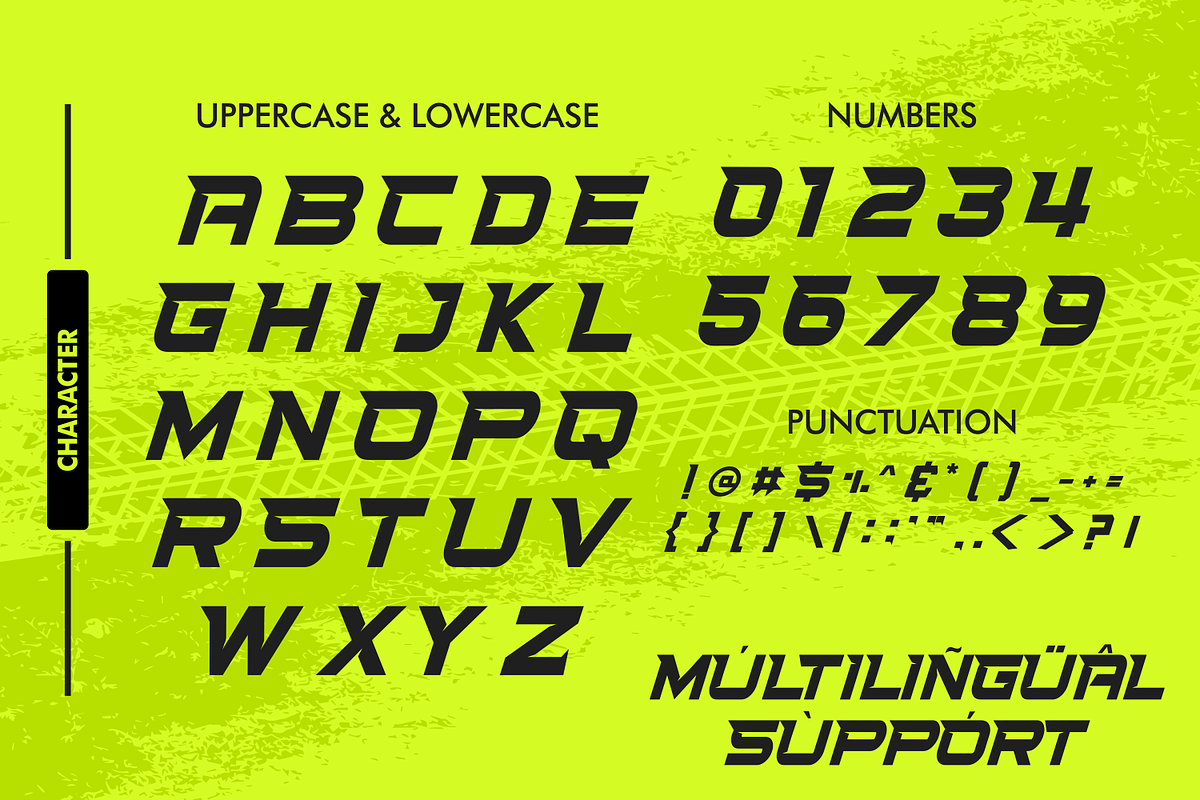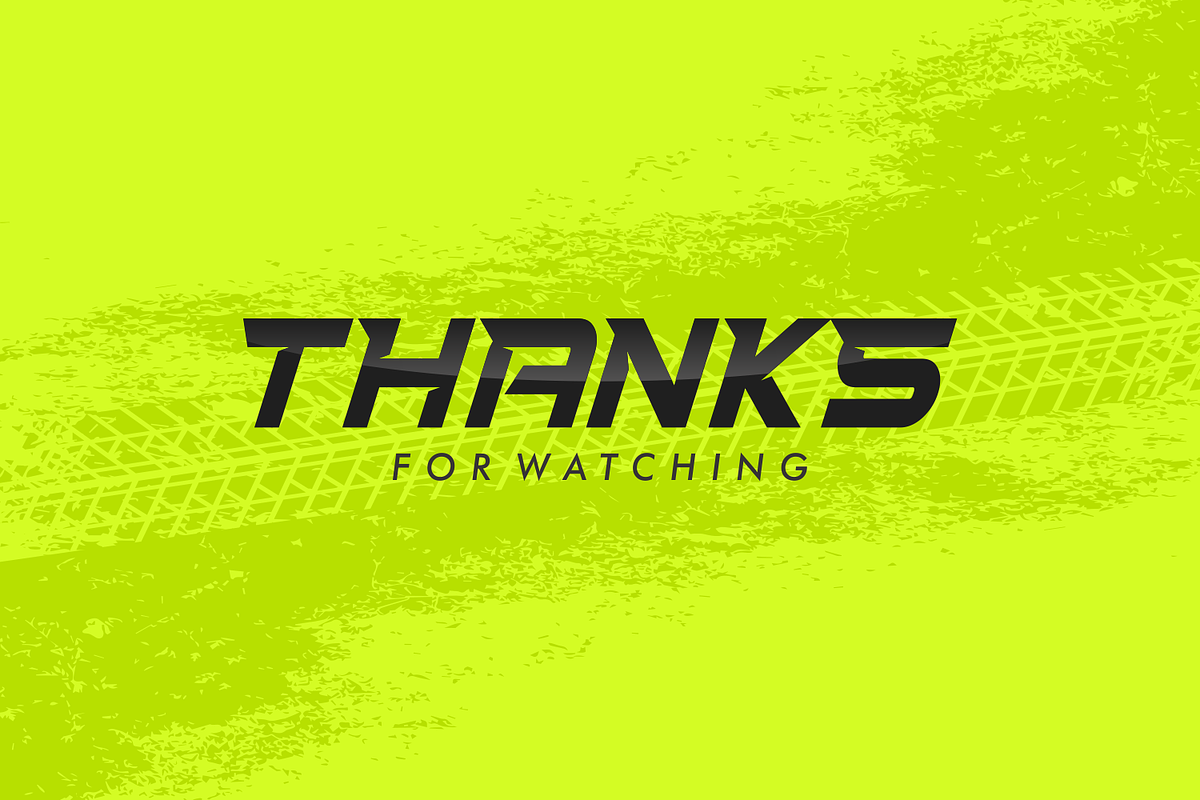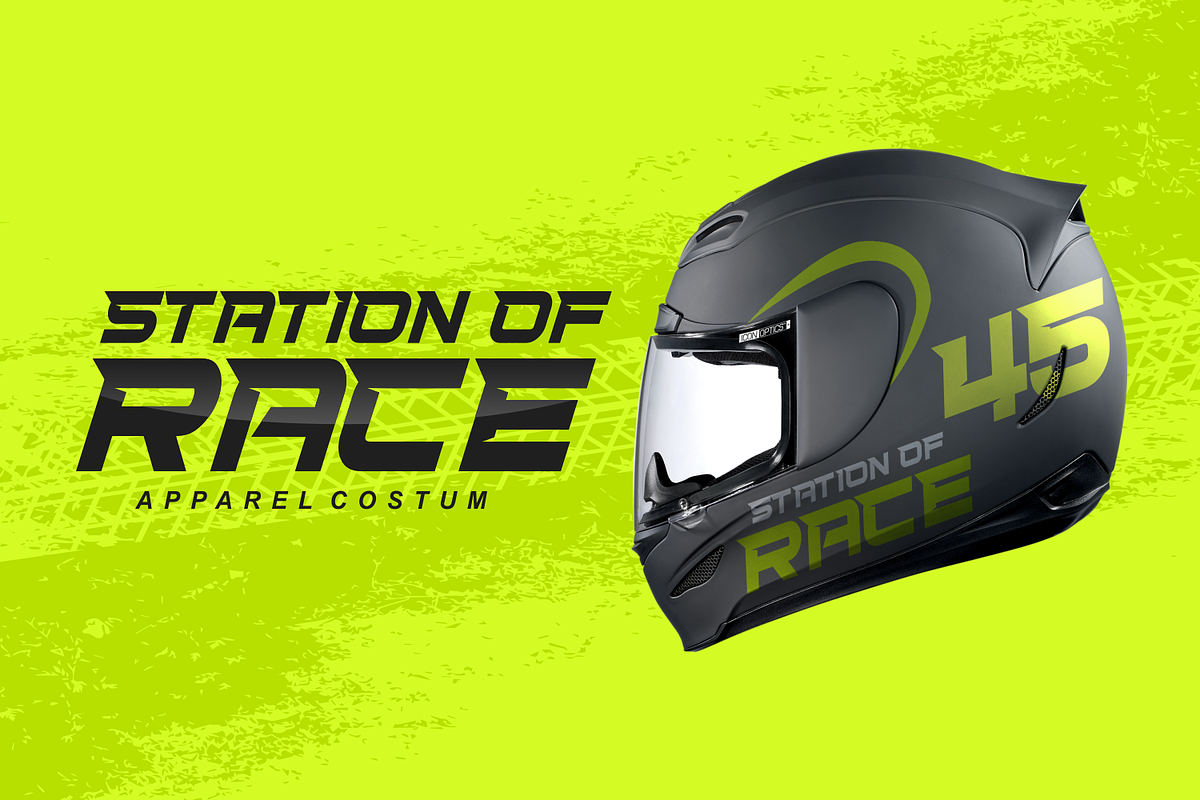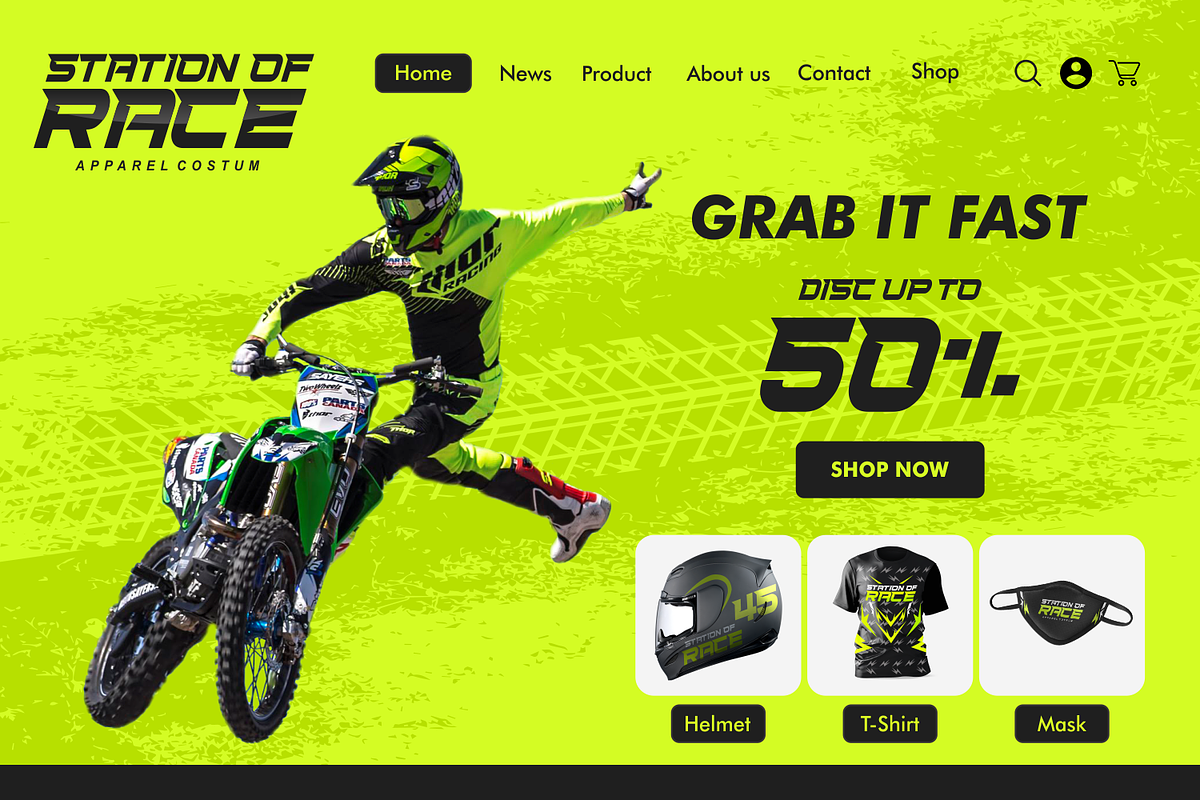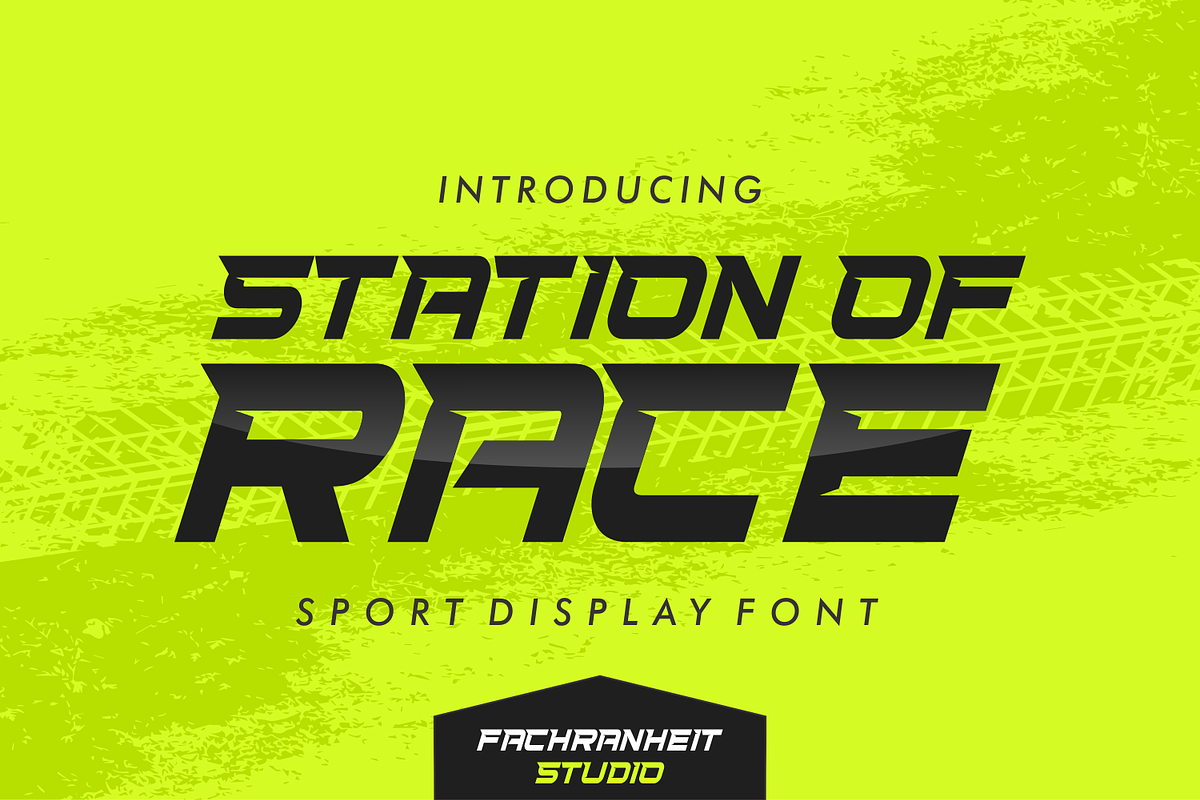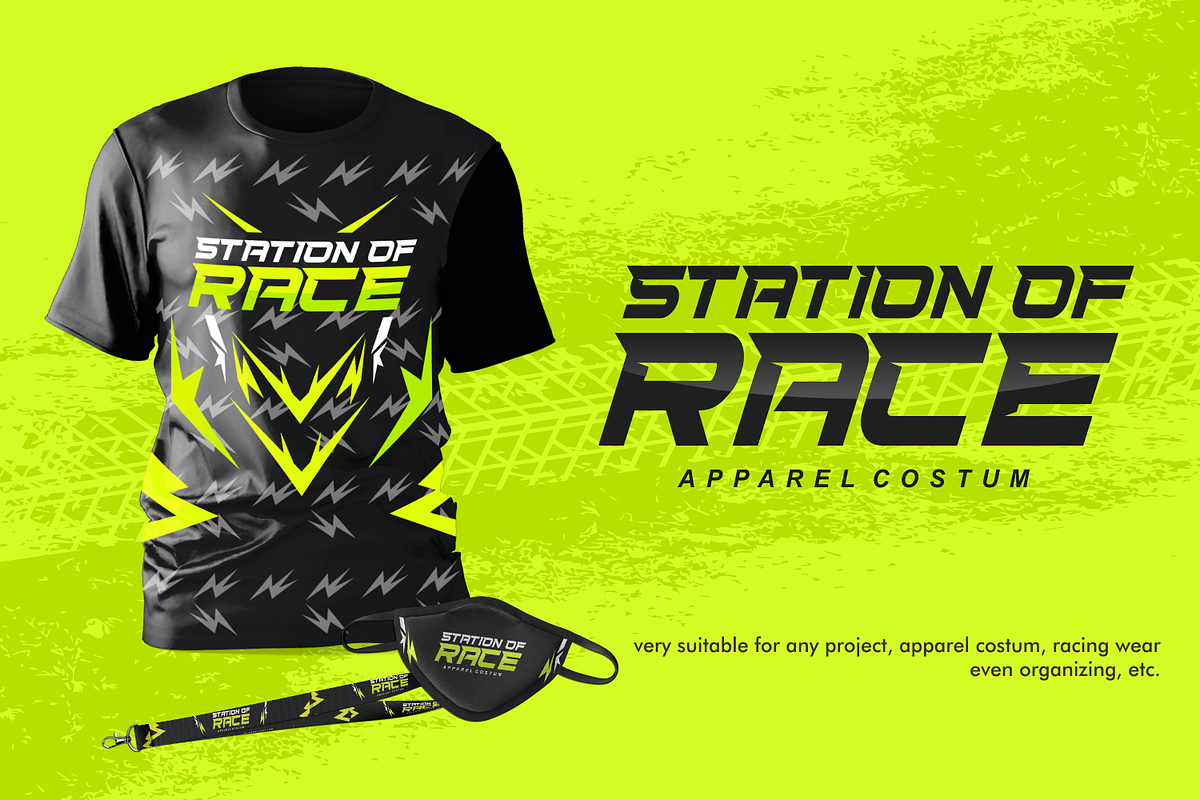
Station of Race
Station of Race is a sport display font
The unique characteristics of Station of Race make it very suitable for various purposes such as quotes, t-shirt designs, flyers, youtube channels, labels, logos, branding, apparel costum etc.
- Multilanguage Support